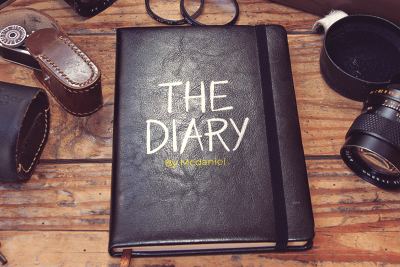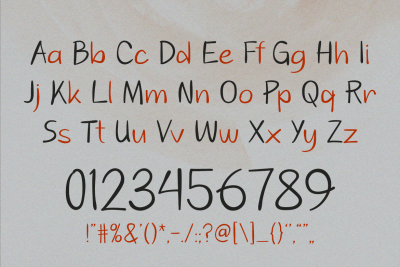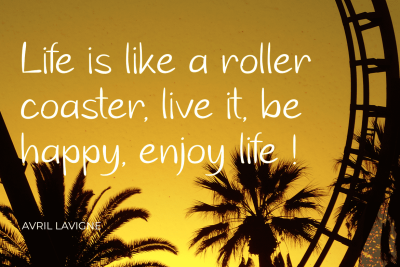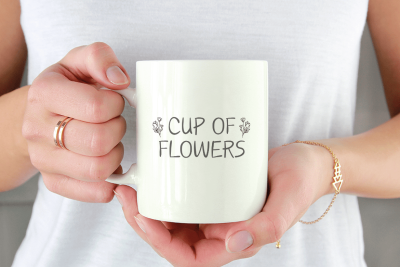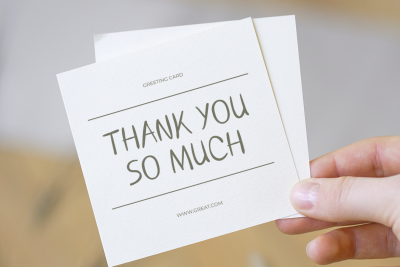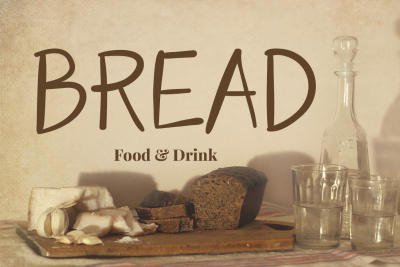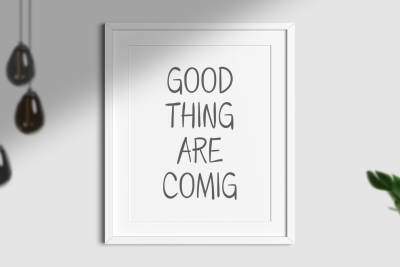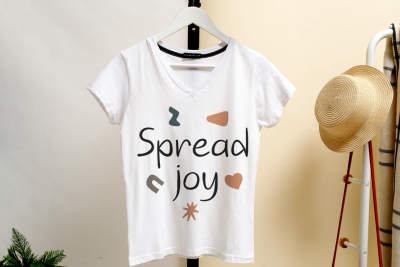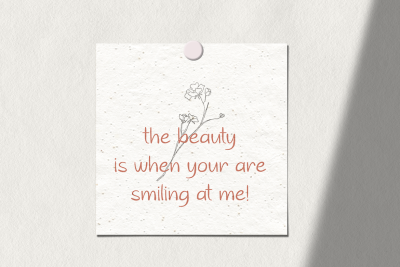
Handwriting Font YORKER is a bold and expressive typeface that truly captures the essence of urban creativity. Designed with fluid strokes and an organic hand-drawn feel, YORKER adds a fresh and modern touch to any project. Moreover, whether you’re crafting logos, social media posts, or editorial designs, this font brings a raw yet stylish personality that stands out.
Inspired by the dynamic energy of city life, YORKER balances casual elegance with a unique handwritten aesthetic. Additionally, its slightly irregular letterforms create a natural and effortless look, making it perfect for branding that requires authenticity and approachability. The carefully crafted curves and sharp edges give it a distinctive urban feel, ensuring your text looks alive and engaging.
Furthermore, YORKER is highly versatile, allowing designers to use it across various creative fields. Whether paired with minimalist backgrounds or layered with vibrant elements, this font seamlessly adapts to different visual styles. As a result, it offers a strong presence and effortless flow, ensuring that every word carries a personal and impactful statement.
Handwriting Font YORKER For?
YORKER is an excellent choice for designers, marketers, and business owners looking to create bold, eye-catching visuals with a personal touch. This typeface is particularly well-suited for:
- Urban & Streetwear Branding: Ideal for fashion labels, apparel logos, and edgy lifestyle brands seeking a modern handwritten identity. Consequently, it helps brands stand out in competitive markets.
- Social Media Creators & Influencers: Enhances Instagram captions, YouTube thumbnails, and Pinterest graphics with a raw and expressive feel. In turn, this increases engagement and audience connection.
- Editorial & Publishing Projects: Perfect for magazine headlines, book covers, and blog headers, providing a stylish and engaging handwritten typography style. Additionally, it adds personality to any written content.
- Event & Music Promotion: Great for concert posters, festival branding, and album covers, adding a rebellious and artistic vibe. Thus, it complements dynamic and high-energy designs.
- DIY & Handmade Product Creators: Works beautifully on Etsy shops, product packaging, and creative projects needing a handcrafted touch. Moreover, it enhances the authenticity of handmade goods.
No matter your creative vision, Handwriting Font YORKER delivers a bold and dynamic aesthetic that elevates any design. Additionally, its urban-inspired elegance, combined with organic fluidity, makes it a must-have font for those who want to make a statement. Whether for digital projects or printed materials, YORKER ensures your message is not just seen but felt.